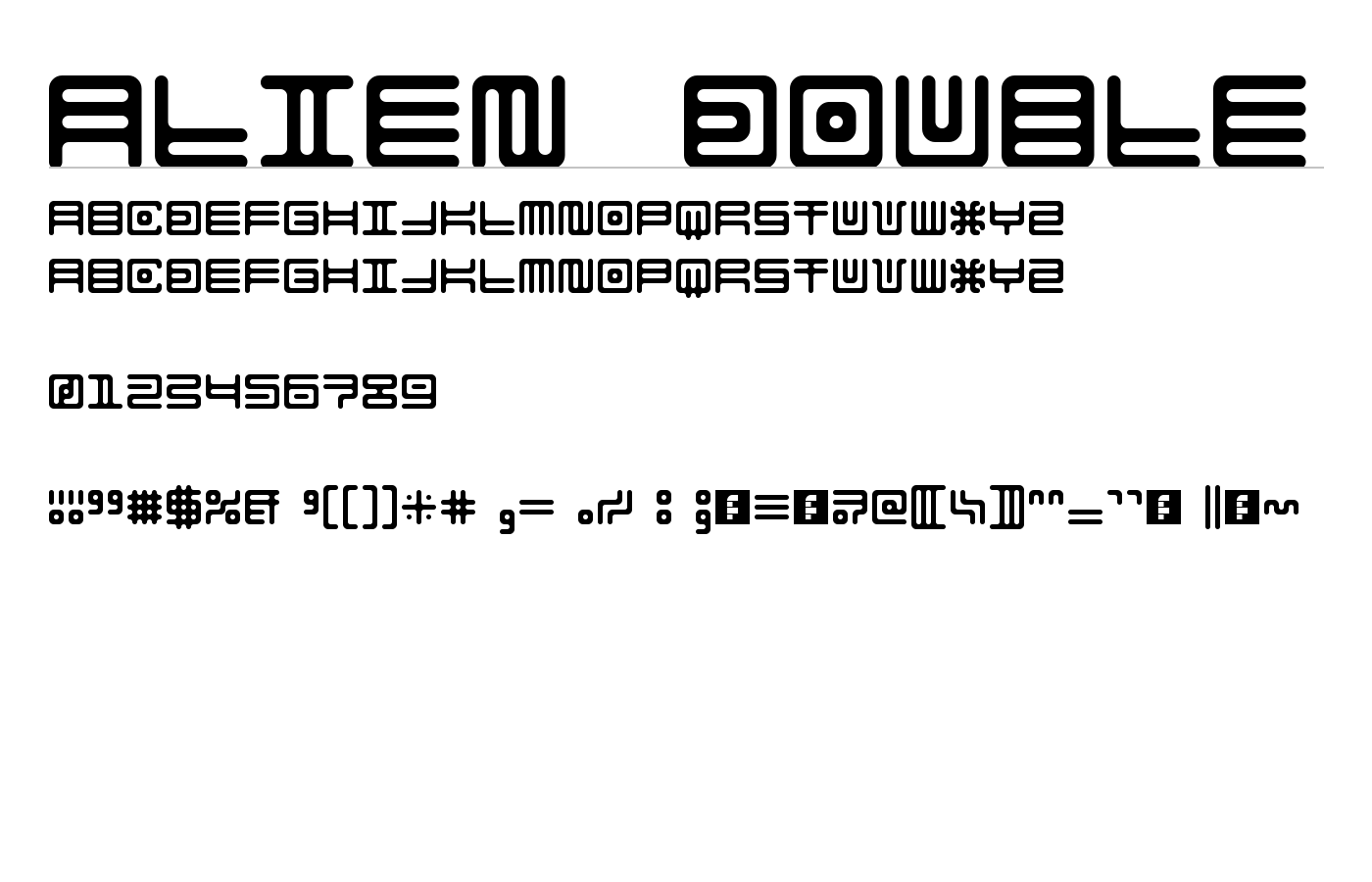
Alien Double is a futuristic, geometric sans serif font with a bold weight and distinctive double-line strokes that create a tech-inspired, sci-fi feel. Its squared shapes and unique letter details make it perfect for eye-catching headlines, logos, and titles where a modern, space-age vibe is desired. This font works best in creative projects related to technology, gaming, and digital branding due to its unconventional and striking style.
Alien double Font
About Alien double Font
| Font family | Alien double Font |
| Designer | CMunk |